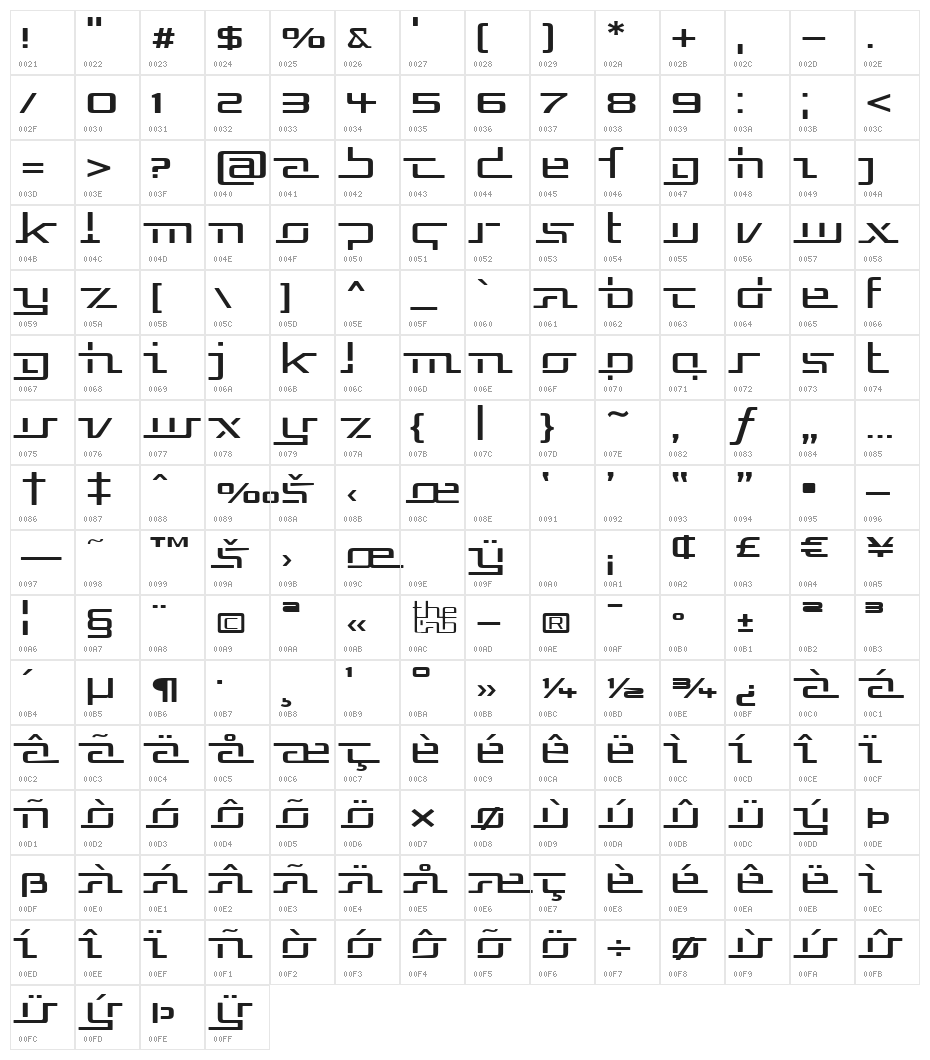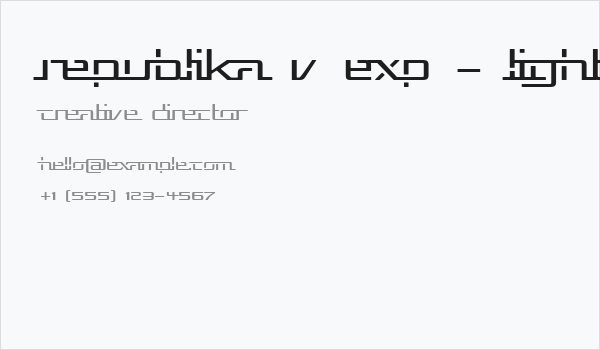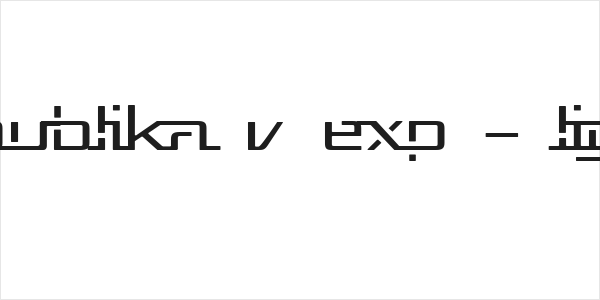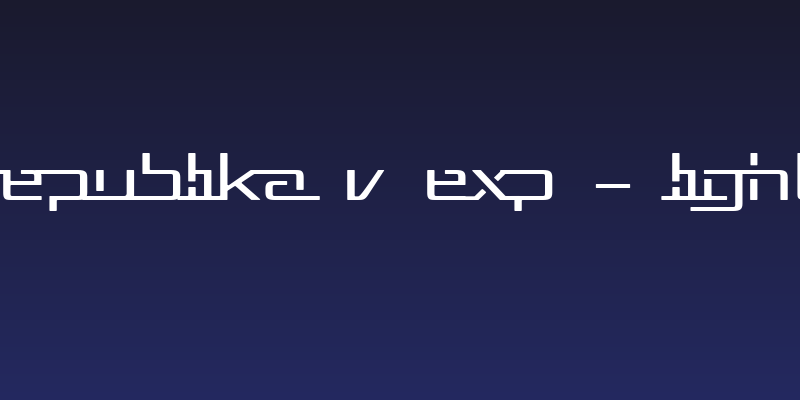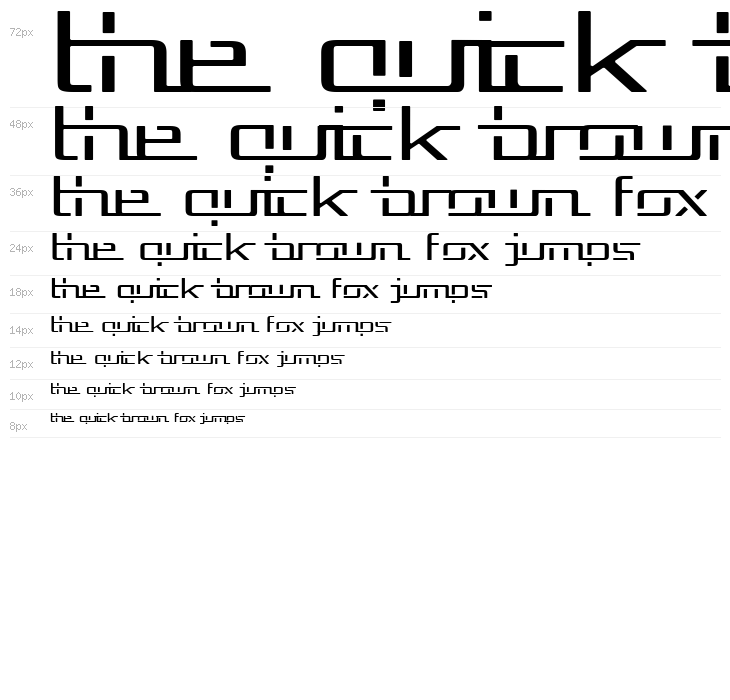
Republika V Exp - Light Font
Republika V Exp - Light Description
This font features a futuristic and geometric design, characterized by its angular and linear structure. The characters are composed of straight lines and sharp angles, giving it a distinctly modern and tech-inspired appearance. The uppercase and lowercase letters maintain a consistent style, with a uniform height and width that enhances readability. The numerals and special characters follow the same design principles, ensuring a cohesive look across all elements. The font's unique style makes it suitable for projects that require a contemporary and innovative touch.
| Proposed Projects | Ideal for technology branding, modern posters, digital interfaces, and sci-fi themed projects. |